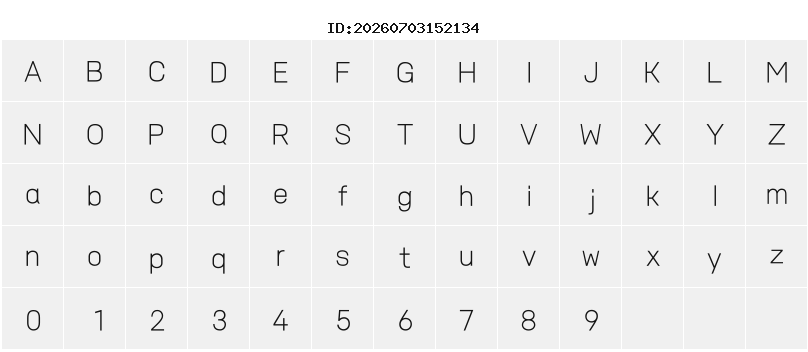
• Font Name: 031-上首简黑纤细体
• Full Font Name: 031-上首简黑纤细体
• Manufacturer: 上首造字
About 031-上首简黑纤细体.ttf
031-上首简黑纤细体.ttf is a modern, elegant sans-serif font designed for ultimate readability and visual harmony. Perfect for branding, headlines, web design, and print materials.